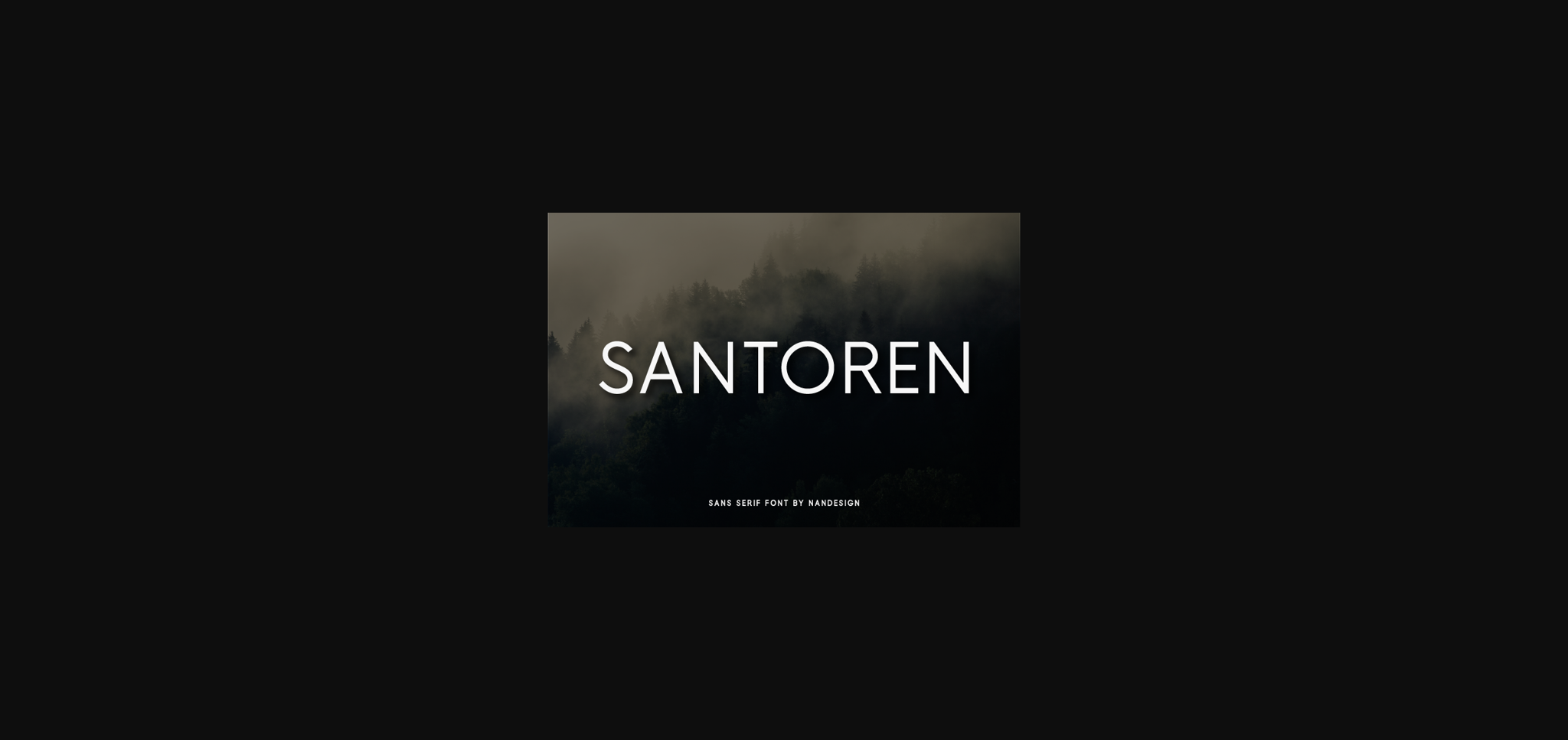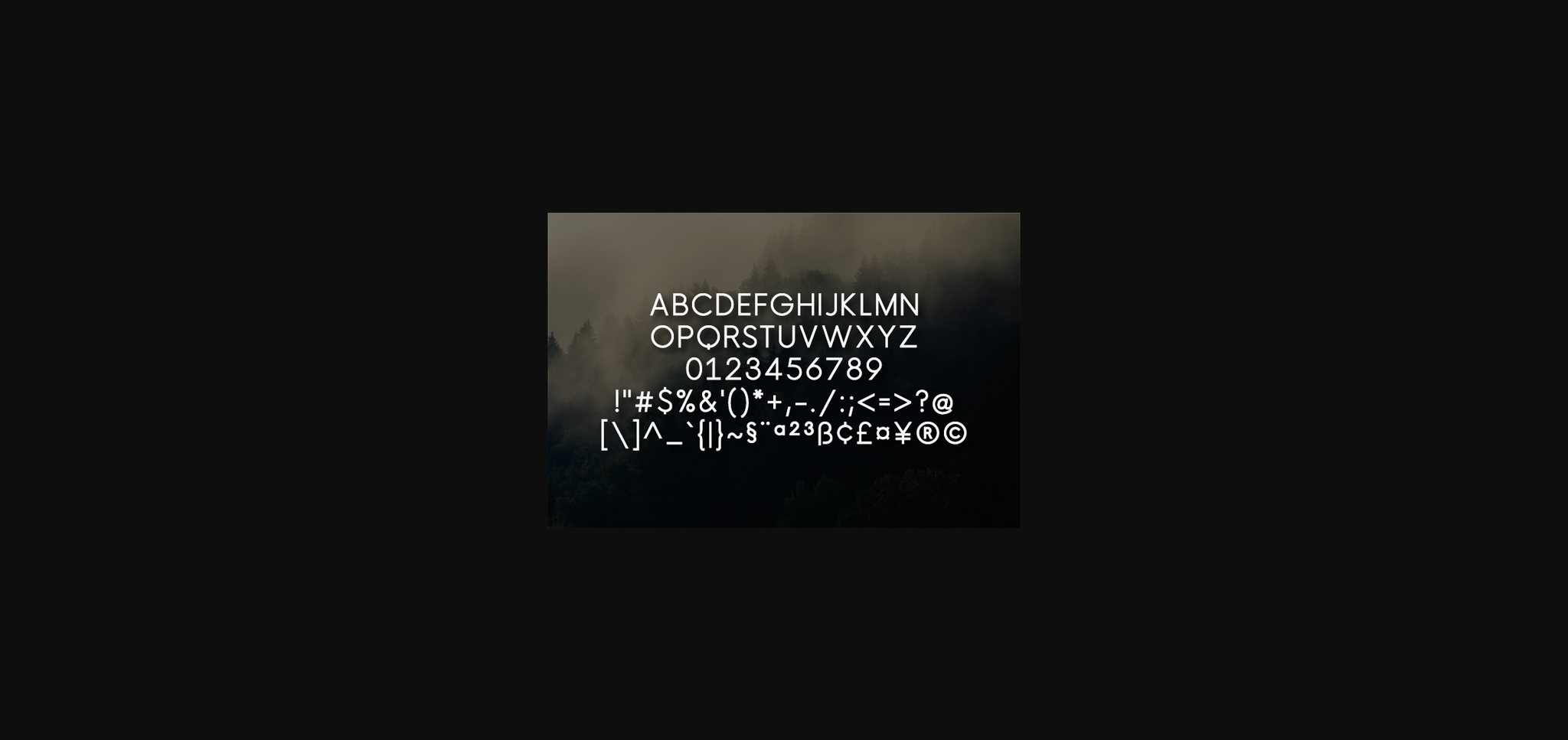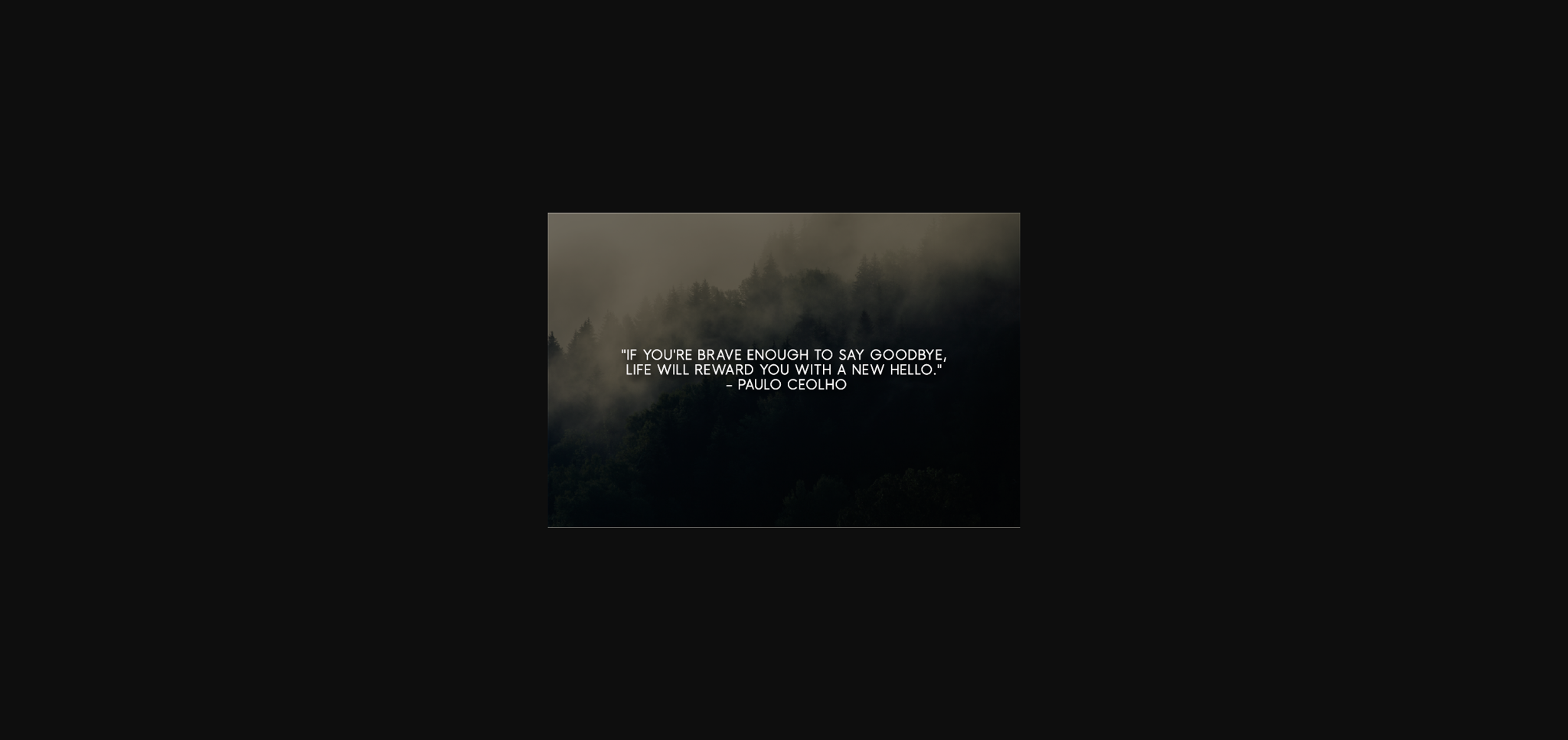
HomeSans Serif FontsSantoren Font Sans Serif Fonts Santoren Font FacebookXPinterestWhatsApp 1 of 5 ... Santoren Font Poster 2... Santoren Font Poster 3... Santoren Font Poster 4... Santoren Font Poster 5... About Santoren Font Santoren is a minimal and neat sans serif font. It can easily be matched to an incredibly large set of projects, so add it to your creative ideas and notice how it makes them stand out! DOWNLOAD NOW People also explored Valentine Font Rain Island Font Ezekiela Font Spooky Boo Font Samantha Font Bring Heart Font Reylineta Font Spring Hearts Font Special Christmas Font 327 0 TagsSantoren Font Previous articleLolle FontNext articleRolline Font LEAVE A REPLY Cancel reply Comment: Please enter your comment! Name:* Please enter your name here Email:* You have entered an incorrect email address! Please enter your email address here Website: Save my name, email, and website in this browser for the next time I comment. Personal Use Free Glowing Personal Use Free Read more about this font Fribash Personal Use Free Read more about this font Frozdotre Personal Use Free Read more about this font Summer Pisces Personal Use Free Read more about this font BLOG How to Install and Use Fonts on Windows, macOS, and Web Projects How to Install and Use Fonts on Windows, macOS, and Web Projects Fonts are a crucial part of design and branding. Whether you’re designing a... To increase your work productivity, choose the most readable fonts. Modern Sans-Serif Fonts That Brands Love in 2025 Top 7 Google Fonts Alternatives for Faster and Privacy-Friendly Web Design (2025)